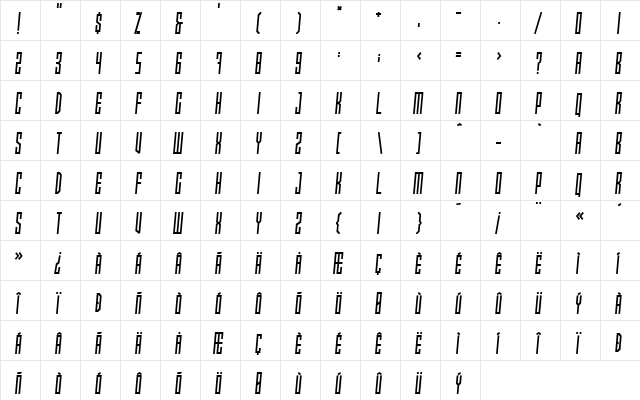
Xray Ted skew Regular
Design Context for Xray Ted skew Typeface
Xray Ted skew is a composed and adaptable typeface that performs quietly and consistently across a wide range of design contexts.